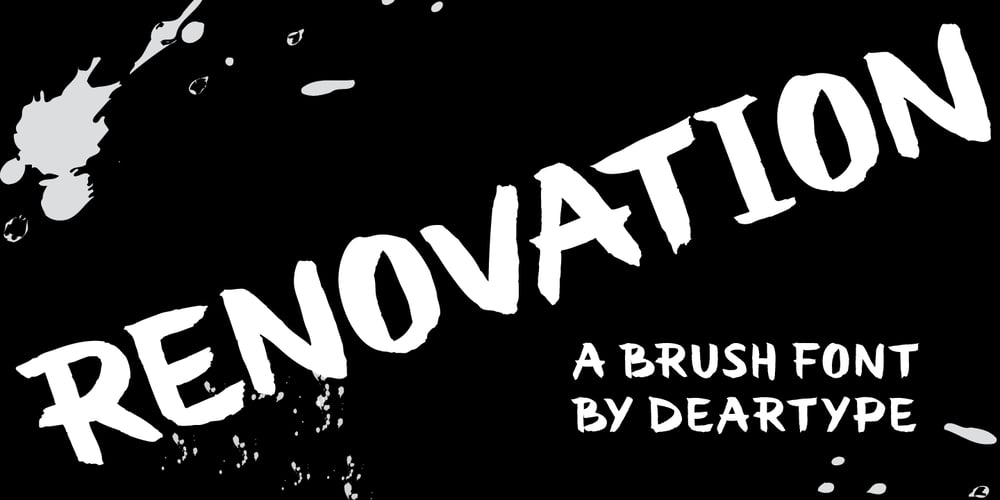
Renovation Font Family was designed by Veneta Rangelova and published by DearType. Renovation contains 1 styles and family package options. Renovation is a bold, brush-style typeface with an attitude. Modern, casual and rough, it is edgy and demands attention. Renovation is perfect for headlines, posters, cards, covers, magazines and websites. It is urban, industrial and chic. As a display typeface, it is ideal for businesses that seek to add a hand-crafted, artisanal feel to their image.